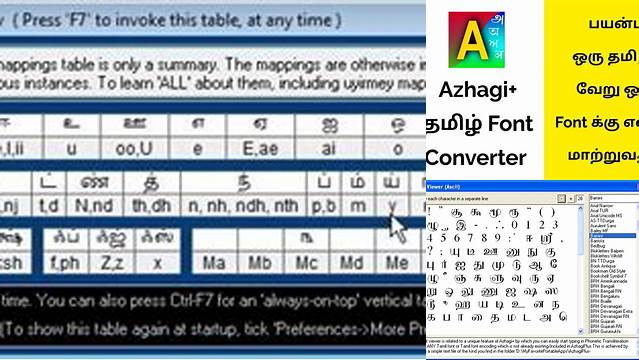
Free Azhagi Tamil Font Download & Install Guide
What is Azhagi Tamil Font?
First things first, what exactly is Azhagi Tamil Font? It's a digital font designed to beautifully display the Tamil language. If you're creating content in Tamil – be it a blog post, a school project, a professional presentation, or even a quirky social media post – a good font is absolutely crucial. Azhagi Tamil Font is specifically designed to make the Tamil script look clear, readable, and visually appealing. Its a common choice because its designed for readability. Plus, the fact that it's available for free makes it even more attractive for many users. Its a versatile font suitable for a variety of uses, from general text to more creative design projects. You will be able to write fluently in Tamil once you install it. Choosing the right font is important for readability, and Azhagi does a good job of it. The font's design typically includes all the necessary Tamil characters and symbols. This ensures that the font accurately renders the Tamil script across different software and devices. The font's availability as a free download is a major advantage. This accessibility allows a wider audience to use it without any cost barriers. The fonts are usually available in formats such as TTF (TrueType Font), which is compatible with most operating systems like Windows, macOS, and Linux. This makes it a convenient option for users across various platforms. Its designed to render the complex nature of the Tamil script, including the various vowel sounds, consonants, and special characters that are unique to the language. It helps make your text visually accessible and easy to read, while also maintaining the cultural integrity of the script. The font is crafted to meet the needs of users who want to display the Tamil language digitally. It's a popular choice among bloggers, designers, and content creators who work with Tamil. Azhagi is created to ensure its compatibility with different software, including word processors, graphic design tools, and web browsers, enhancing its usability. Azhagi Tamil Font ensures readability with the help of appropriate font size, style, and spacing, which is crucial for any written content. The use of the correct font can significantly enhance the visual appeal of Tamil content and make it more engaging for readers. Users can enhance their content to provide a seamless and aesthetically pleasing reading experience for anyone who reads it. Whether you are writing a personal message, a formal document, or anything in between, Azhagi Tamil Font is designed to make your Tamil text visually appealing and readable. The font's design is optimized to improve legibility, making the text clear and easy to understand. The font is available for free, which makes it accessible to anyone without the barrier of cost. Azhagi is designed to provide a consistent visual experience, ensuring that the Tamil script is rendered correctly across various devices and platforms. The consistent rendering of the Tamil script is essential to ensure that the meaning and context of the text are properly conveyed. It is a user friendly option that ensures the Tamil language text is easily displayed. Many users have it as a prefered tool. With Azhagi, users will feel confident in their writing because it ensures readability.